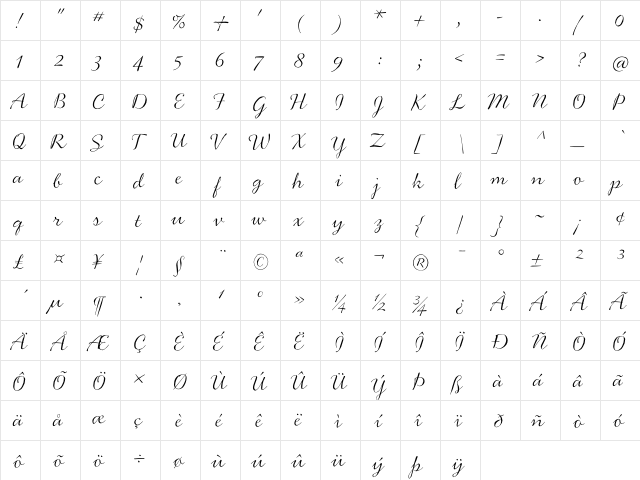
Handsome Pro Classic
| Designer | Nick Shinn |
Design Context for Handsome Pro Typeface
Handsome Pro has the warm character of retro typography — evoking diners, record sleeves, and the golden age of print advertising.
Perfect for vintage-inspired branding, retro packaging, nostalgia campaigns, and period-accurate editorial design.
Font Pairing: Combine Handsome Pro with a simple slab or neutral sans — period-accurate companions reinforce the vintage feel without competing for attention.
Pro Tip: Use Handsome Pro for headlines and pull quotes rather than body copy — its personality is best appreciated in short, focused bursts.